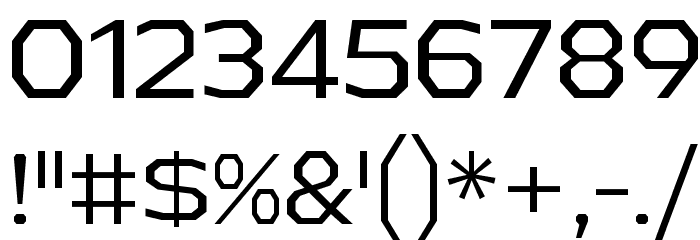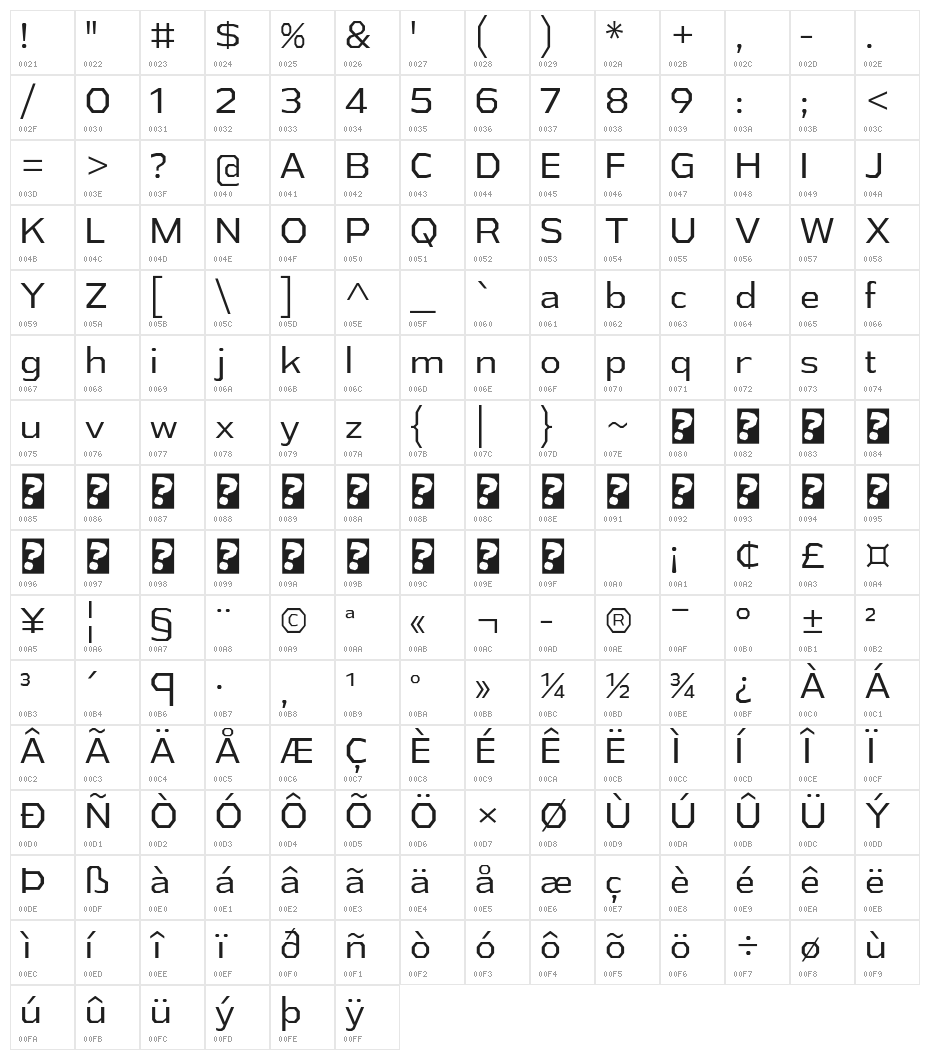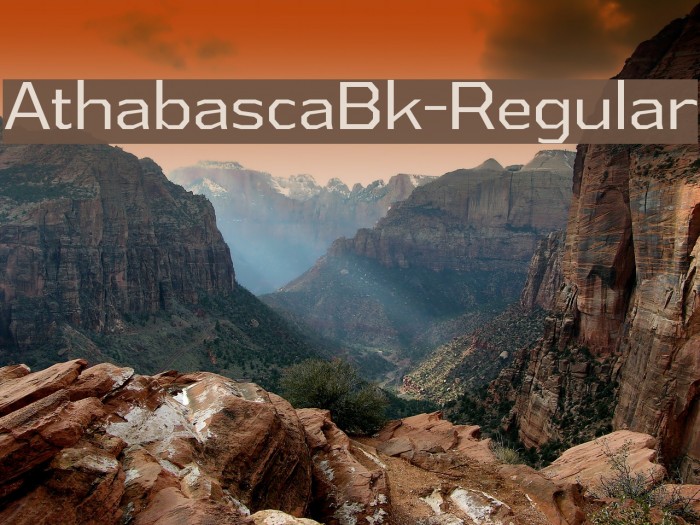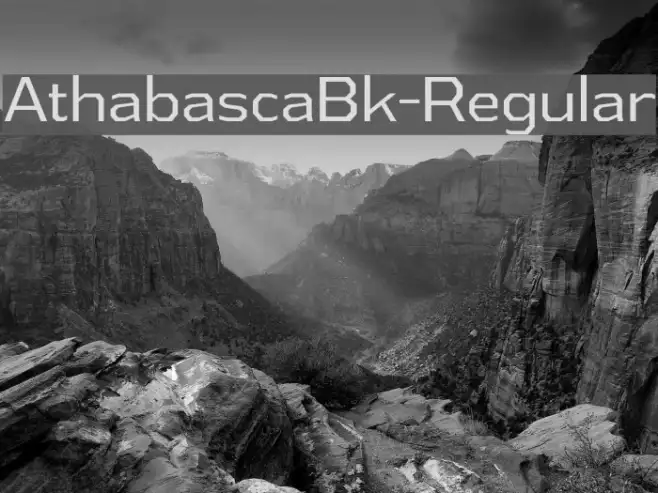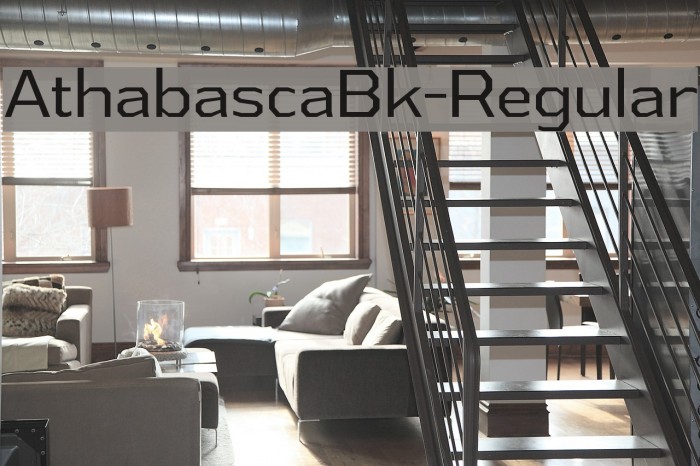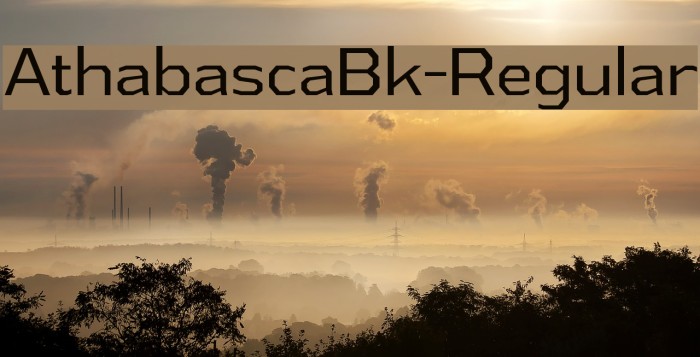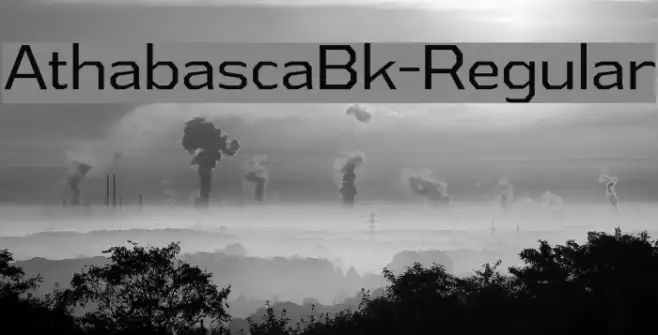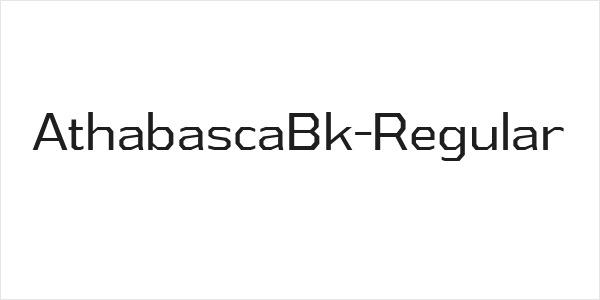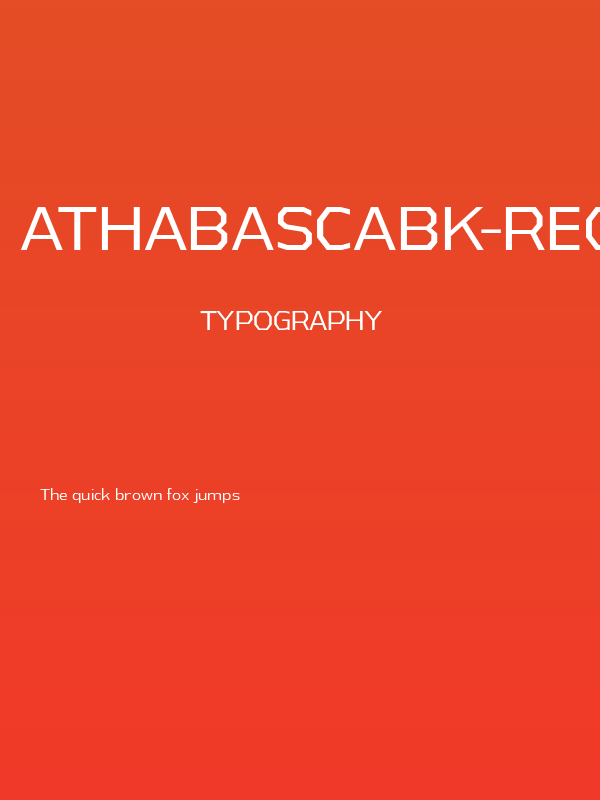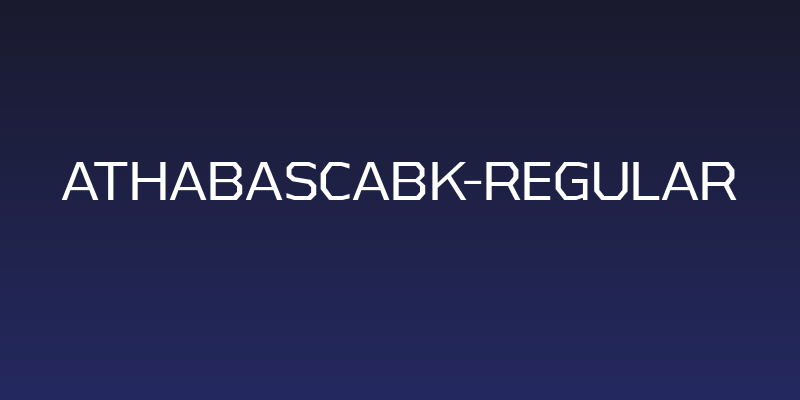
AthabascaBk-Regular Font
AthabascaBk-Regular Description
This font features a geometric and modern design with clean, straight lines and sharp angles. The uppercase and lowercase letters maintain a consistent width, giving it a uniform appearance. The characters are well-defined with a slightly technical feel, making it suitable for contemporary design projects. The numerals are clear and distinct, matching the overall style of the alphabet. Special characters are included, maintaining the same geometric aesthetic. This font's precise and structured look makes it ideal for projects that require a modern and professional touch.
| Proposed Projects | Ideal for technology branding, modern web design, and corporate presentations. |